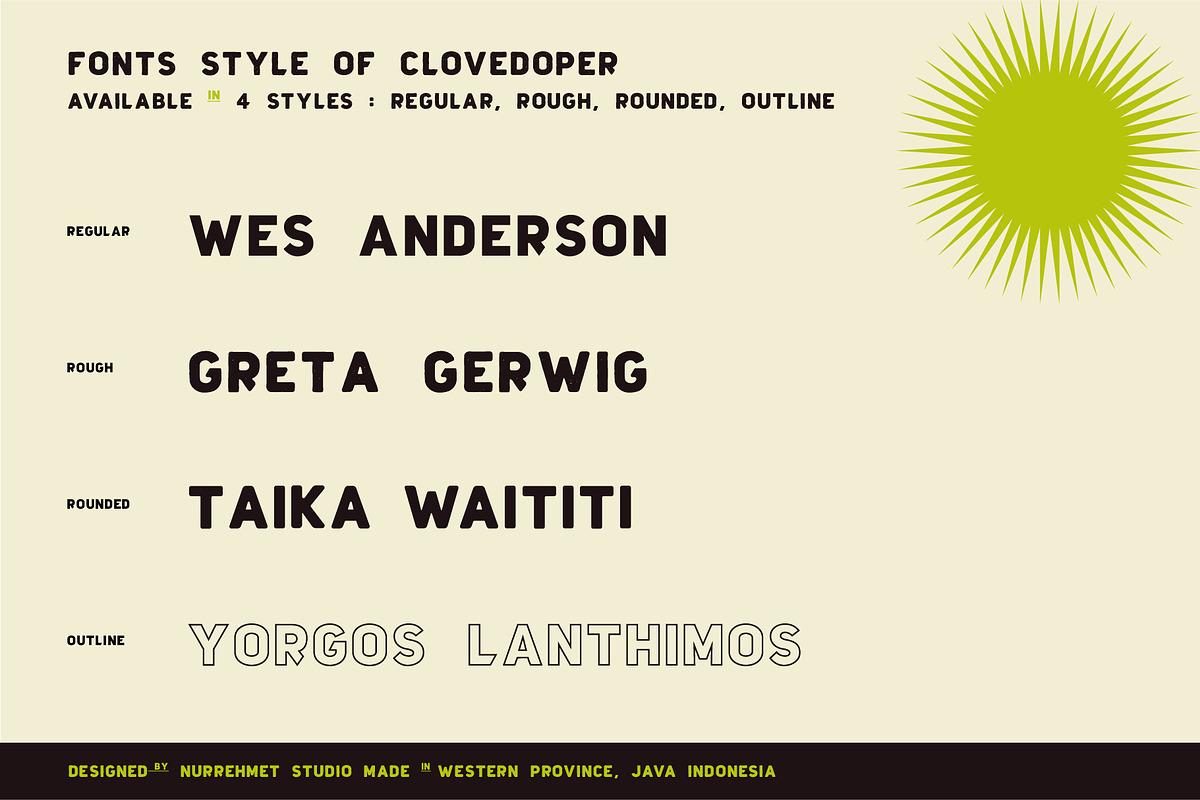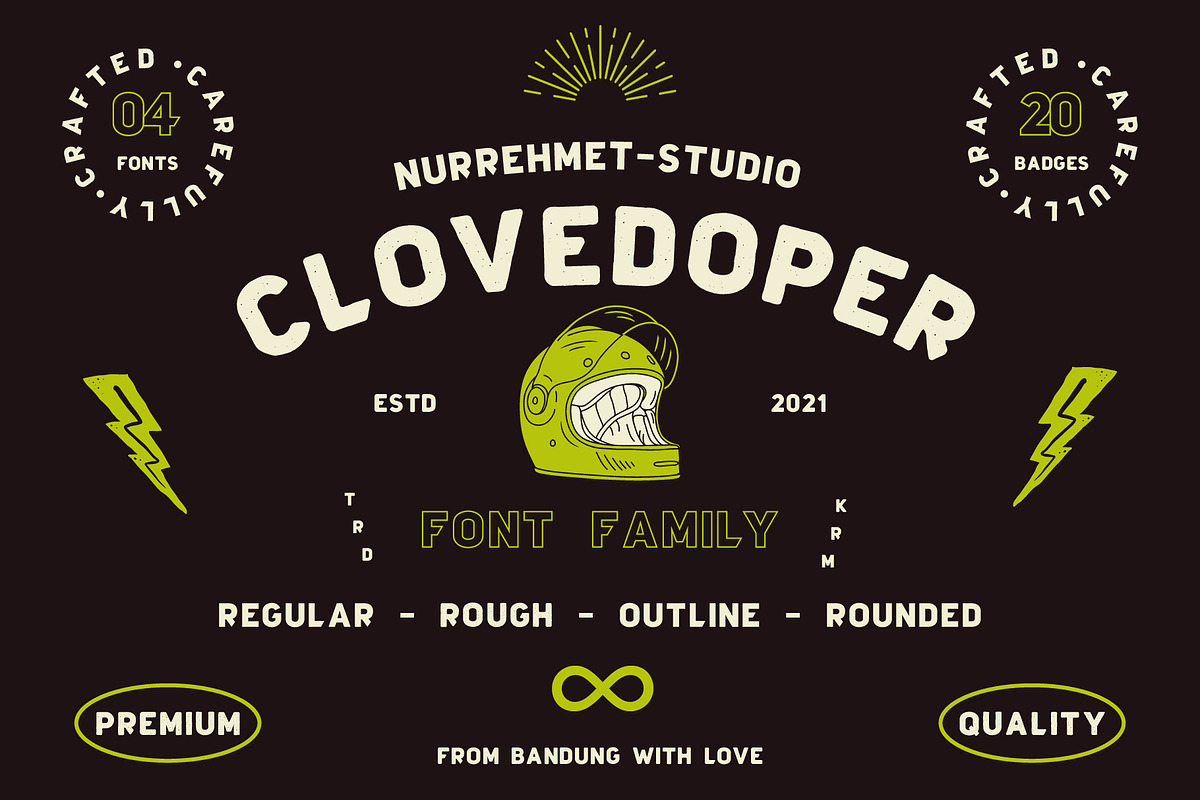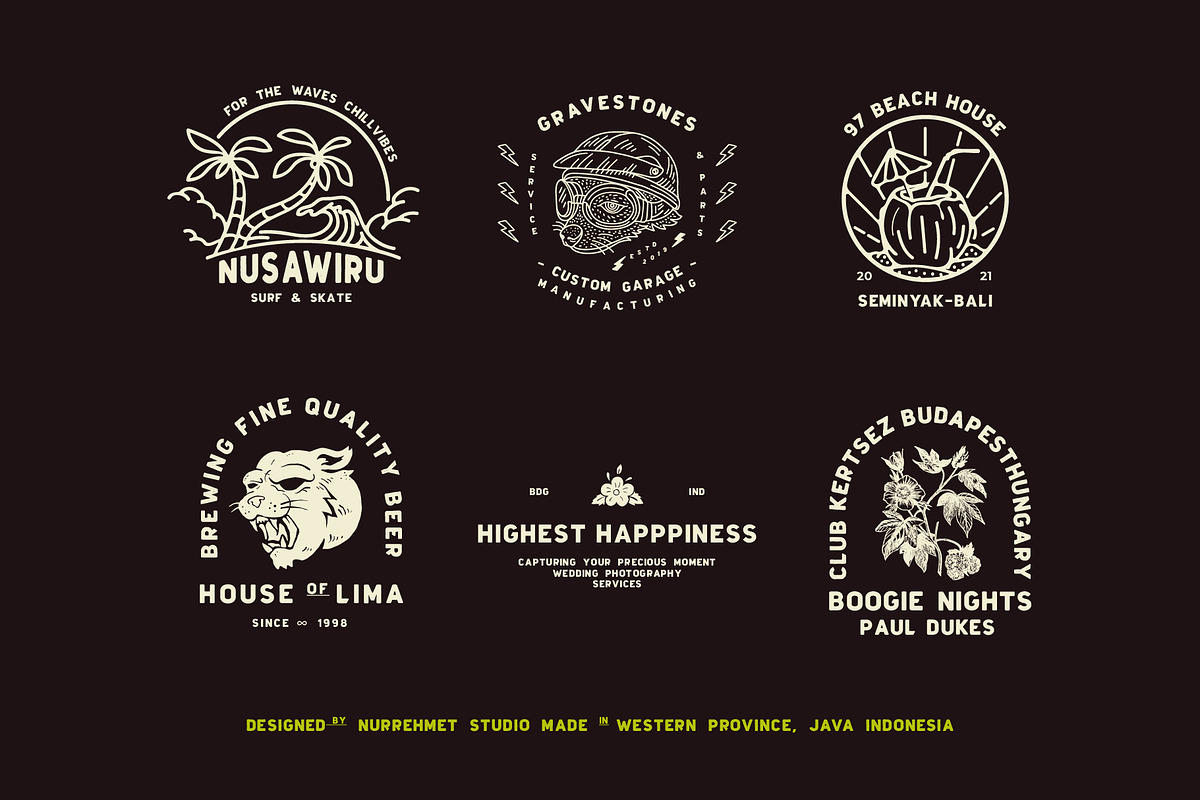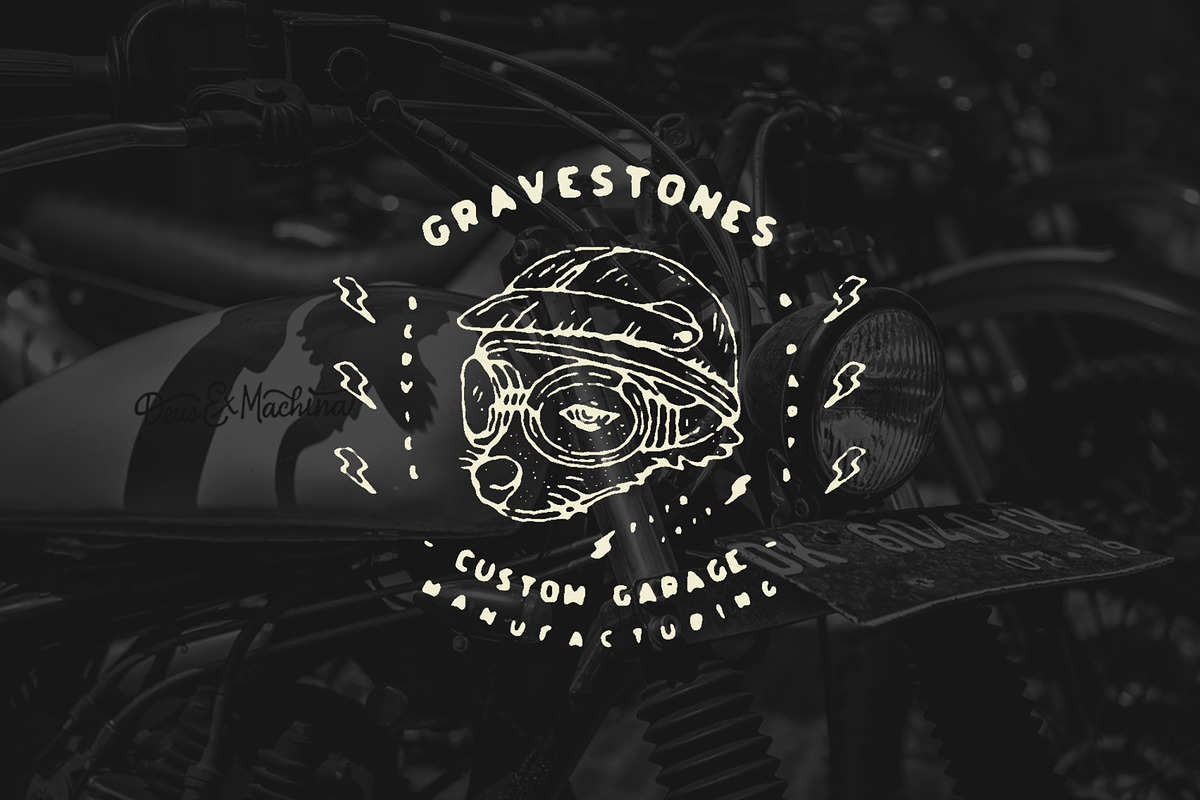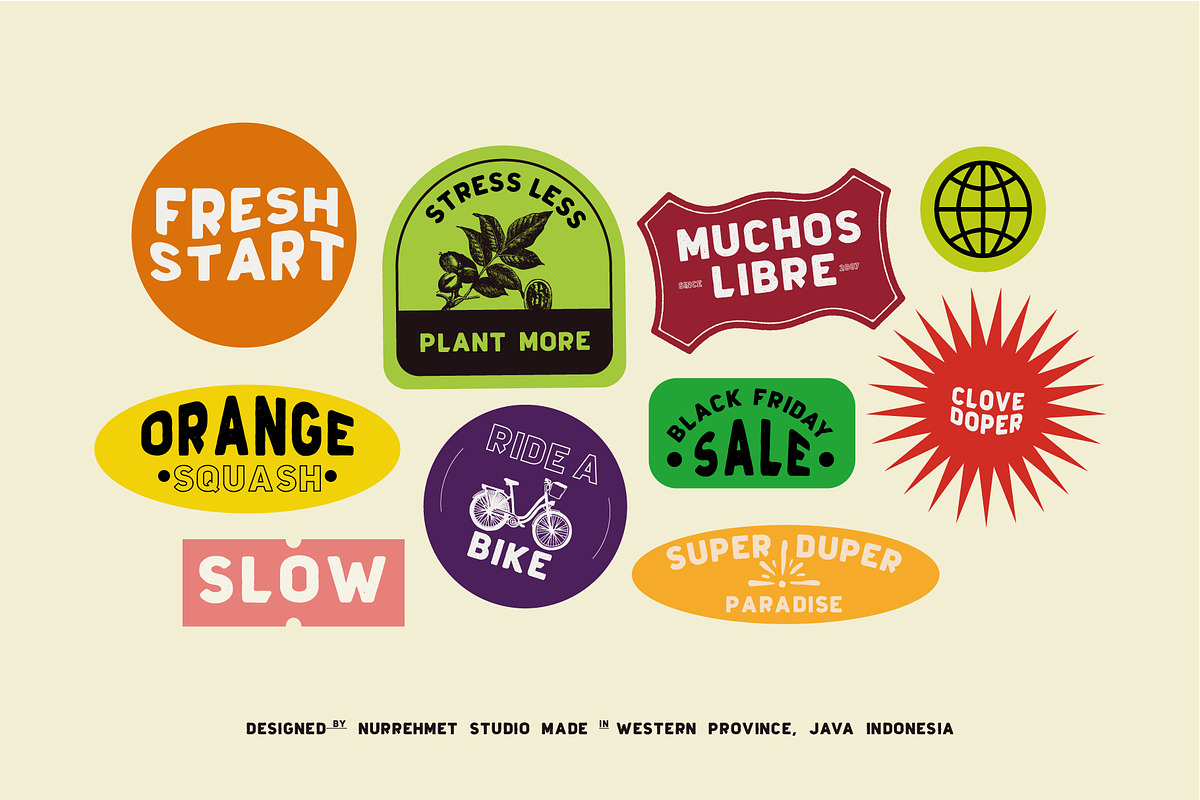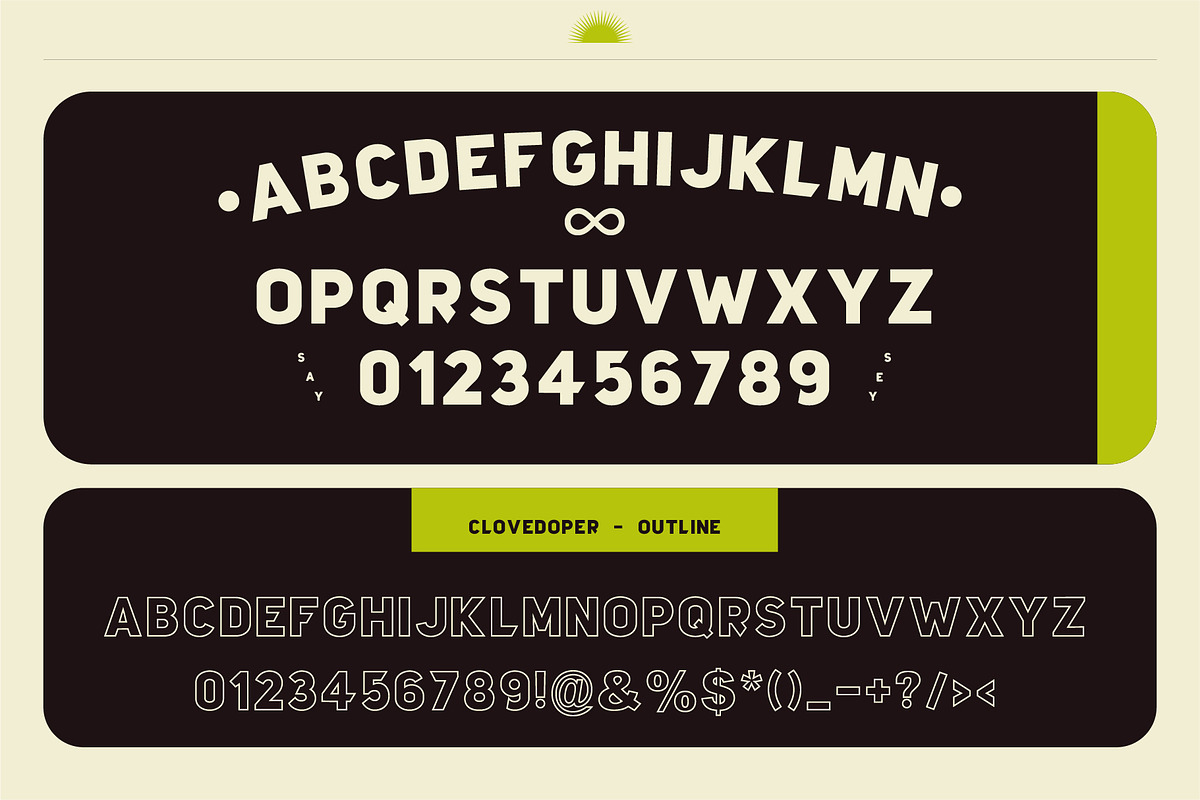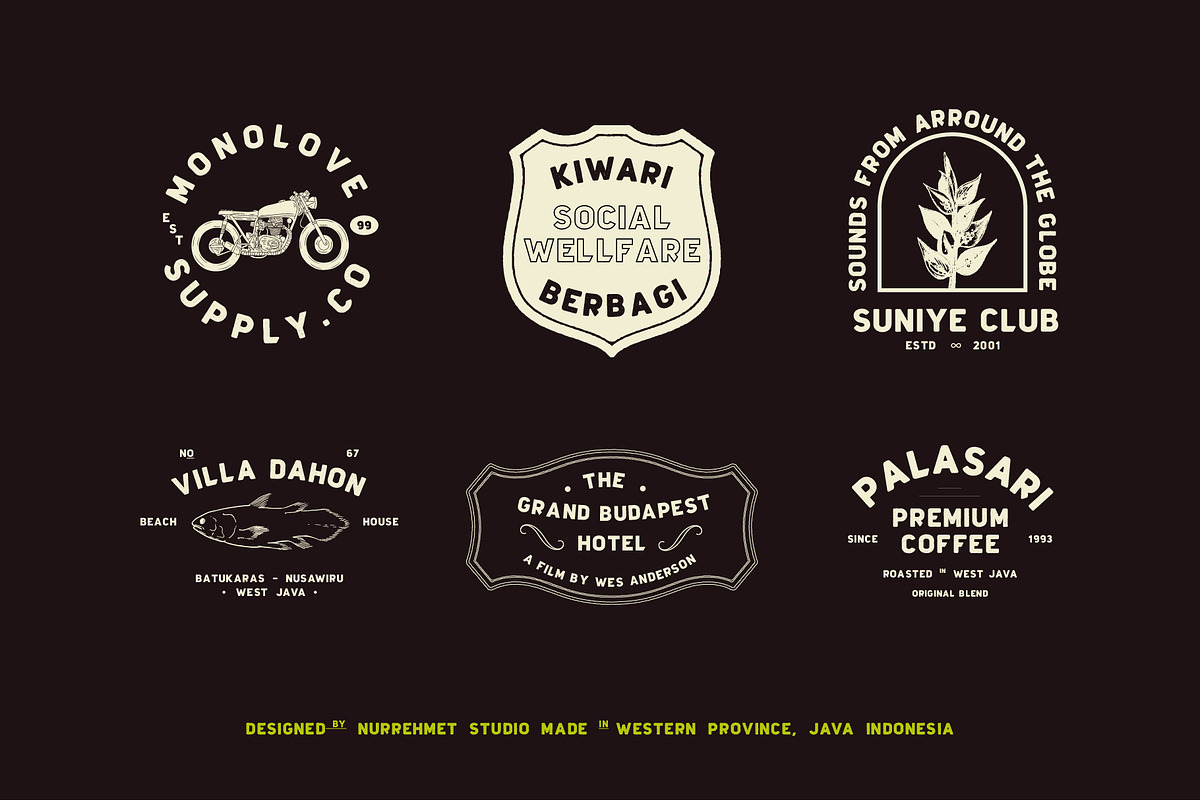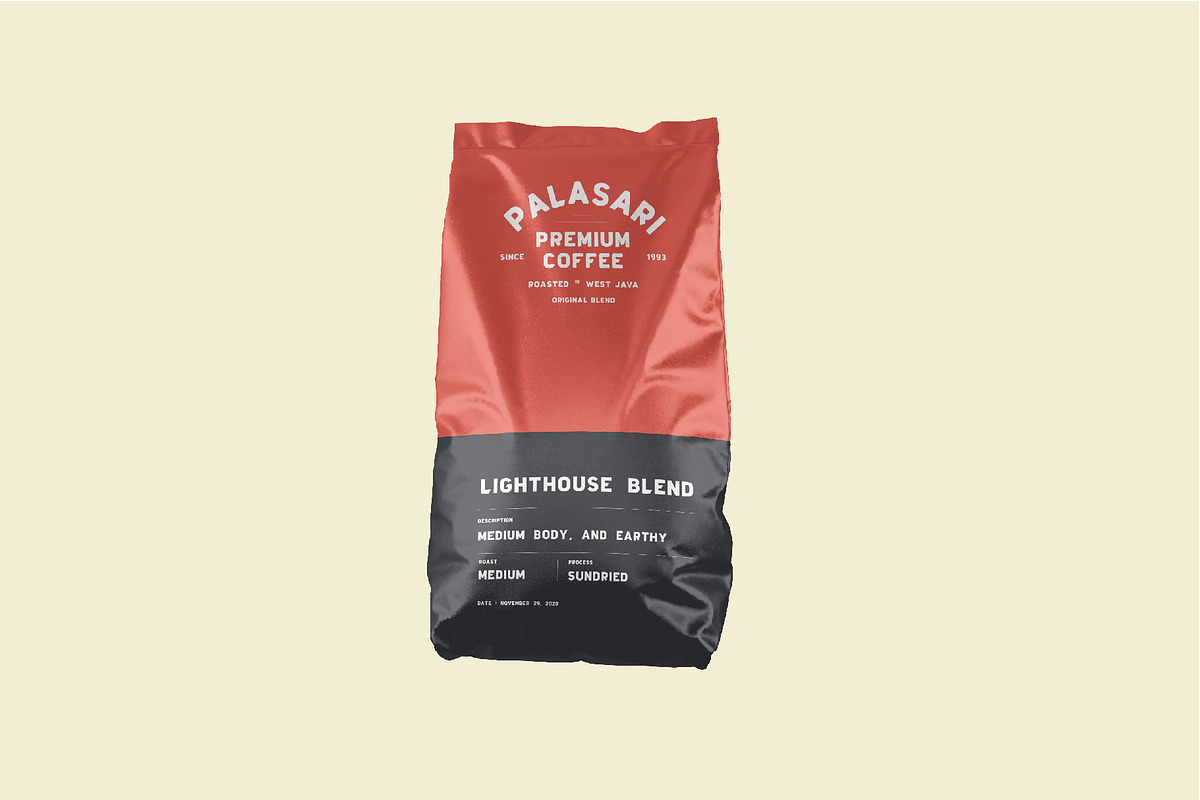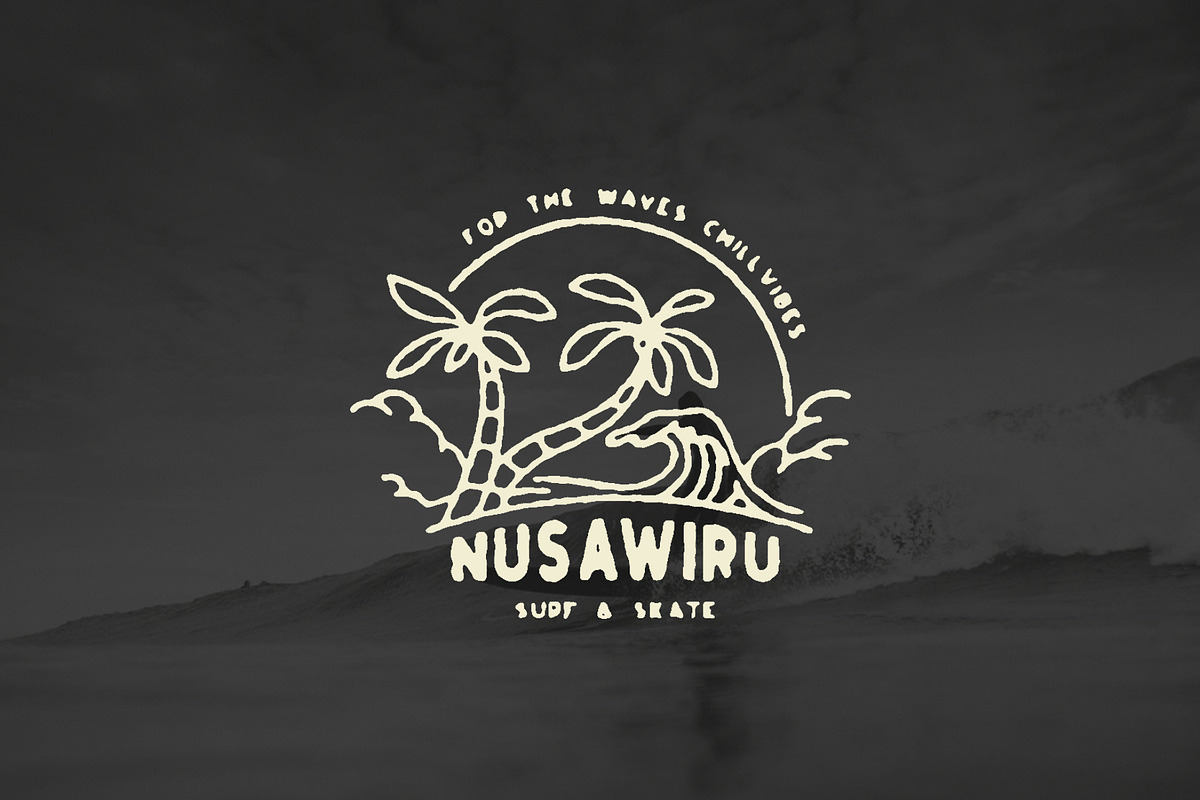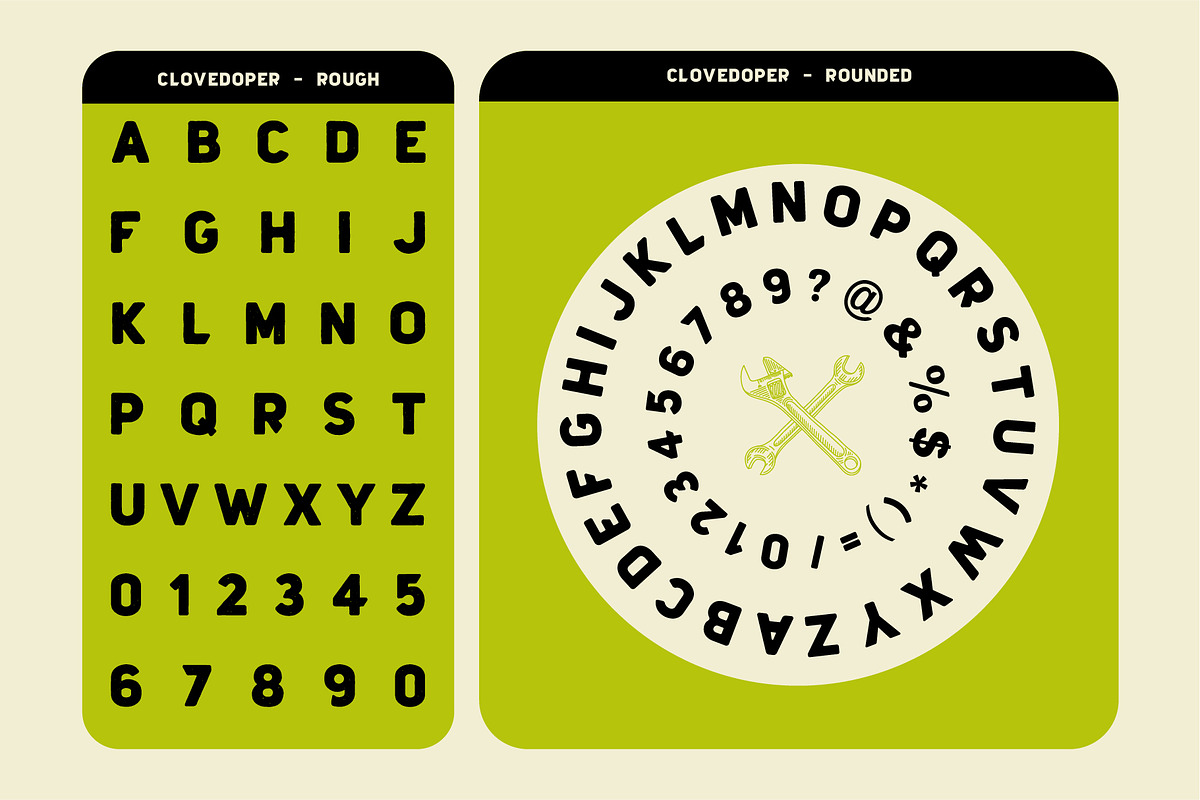
Clovedoper Family - Modern Vintage
Clovedoper Family is a new mix of font and template + badge packages with a modern style. This font is perfect with motorbike person or motorcycle club and custom garage business.
Suitable for logo, t-shirt, print, business cards, branding materials, nature photography, etc, made with carefully crafted.